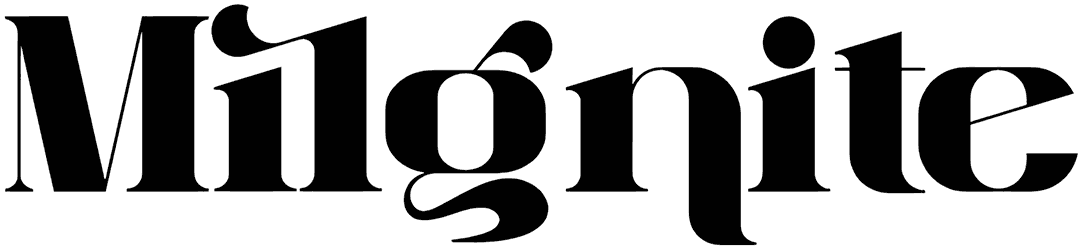
Milgnite Font
If you think of creating a trusted, modern design with a strong impact, a serif font instantly comes to mind. Eye-catching enough to fascinate the crowd through its serious manner.
There is a complete set of characters with good readability to give you wide usage. You can easily use this royal font for making anniversary party invitations, fancy restaurant menus, fashion brands, book covers, and even website headlines.